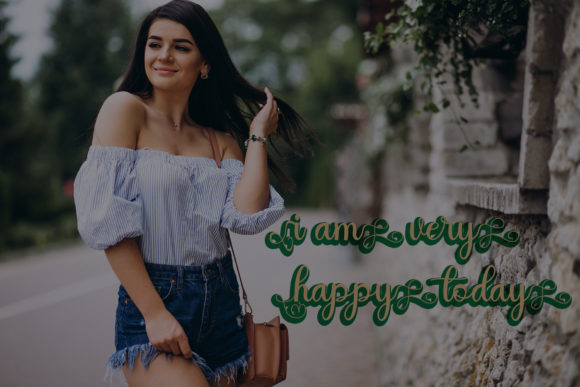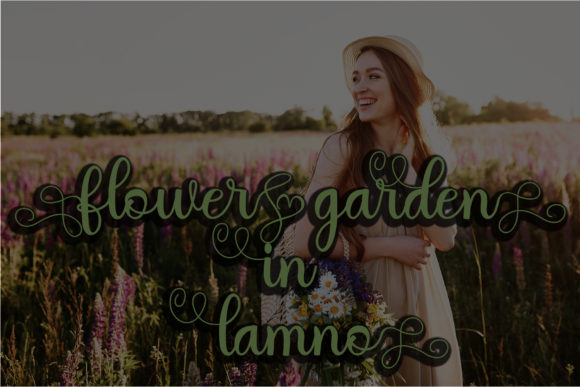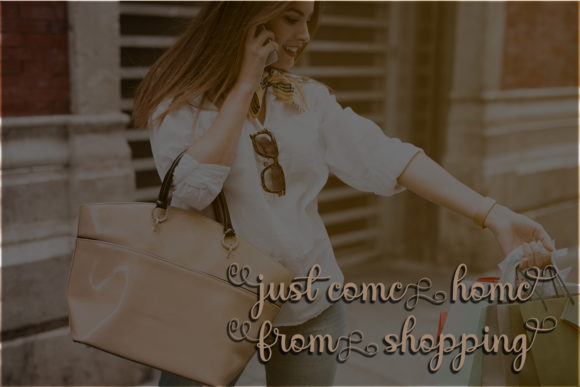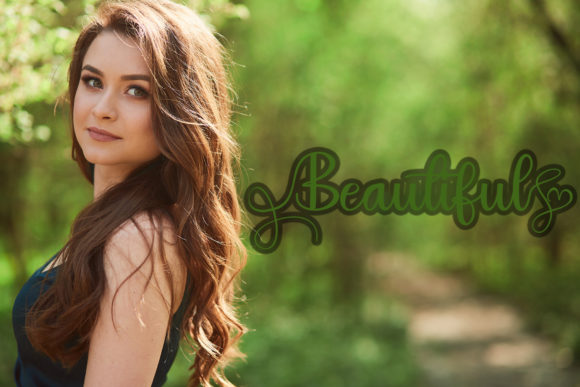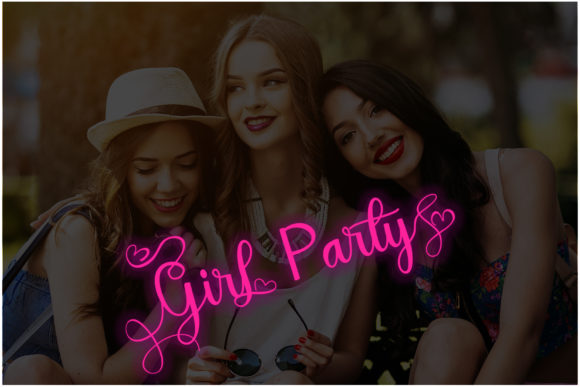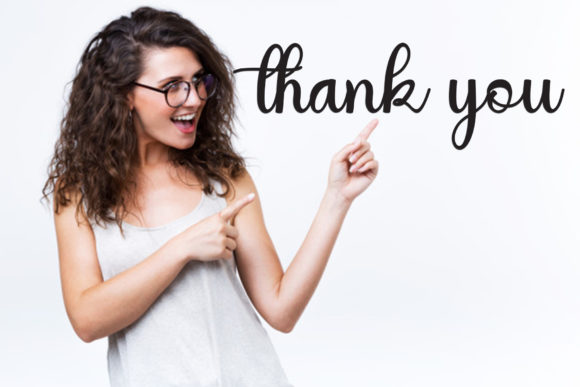
The Perfect Stroke of Creativity: Unveiling the Butterfly Font
Have you ever been lost in a sea of inspiration, searching for that perfect font to bring your design to life? It’s a moment we’ve all experienced – the blank page staring back at us, begging for a spark of creativity. And then, it hits you: the perfect font that captures the essence of your vision. For many designers, this moment of clarity often involves the elegant and modern Buterfly Font.
| 👤 Author | maydhen studio |
This beautifully handwritten font boasts a unique and modern take on traditional calligraphy, making it a standout choice for adding a natural touch to any design. Its organic feel and subtle flair set it apart from more rigid fonts, allowing designers to infuse their work with a sense of personality and style.
Whether you’re crafting a wedding invitation, designing a logo, or creating a branding package, the Buterfly Font is an invaluable asset in any designer’s toolkit. Its versatility and aesthetic appeal make it a valuable addition to any design project, and we can’t wait to explore its many uses in this article.
Key Features of Butterfly Font
- Unique Characteristics: The Butterfly Font features a unique, hand-drawn design with intricate details and subtle flourishes, giving it a distinctive and elegant appearance.
- Font Metrics: The font’s x-height, cap height, and baseline are carefully calibrated to ensure optimal readability and aesthetic appeal.
Designer Review: Butterfly Font
Overall, I’d say the Butterfly Font is a unique and playful addition to any design project. ✨ The font’s whimsical feel and delicate lines make it perfect for creating eye-catching headings and titles. The script-like appearance adds a touch of elegance, making it suitable for wedding invitations, baby announcements, or any other occasion that calls for a romantic feel.
One of the things I love about the Butterfly Font is its versatility. ✨ It comes in a range of weights, from light to bold, allowing you to experiment with different styles and moods. The font also supports a variety of languages, making it a great choice for international projects.
However, I do have some concerns about the font’s limitations. ⚠️ While it’s beautiful, the Butterfly Font can be a bit too ornate for certain designs. In some cases, it may be hard to read, especially in small sizes or when used extensively throughout a document. Additionally, the font may not be suitable for formal or professional projects, as its playful nature may come across as unprofessional.
- What works well:
- Unique and playful design
- Delicate lines and script-like appearance
- Versatility in weights and languages
- Limitations:
- May be hard to read in small sizes or extensive use
- Not suitable for formal or professional projects
Practical Application Guide for Butterfly Font
For best results, use the Butterfly font in conjunction with other decorative fonts to create a unique and eye-catching design.
The Butterfly font is ideal for use in creative and whimsical designs, such as:
– Children’s book covers
– Party invitations
– Wedding stationery
Alternatives to Butterfly Font
Cursive Script
Cursive Script is a classic, elegant font ideal for formal invitations, wedding stationery, and other high-end designs. It features smooth, connected strokes and is perfect for adding a touch of sophistication to any project. In comparison to Butterfly Font, Cursive Script is more formal and less playful, making it suitable for more professional applications.